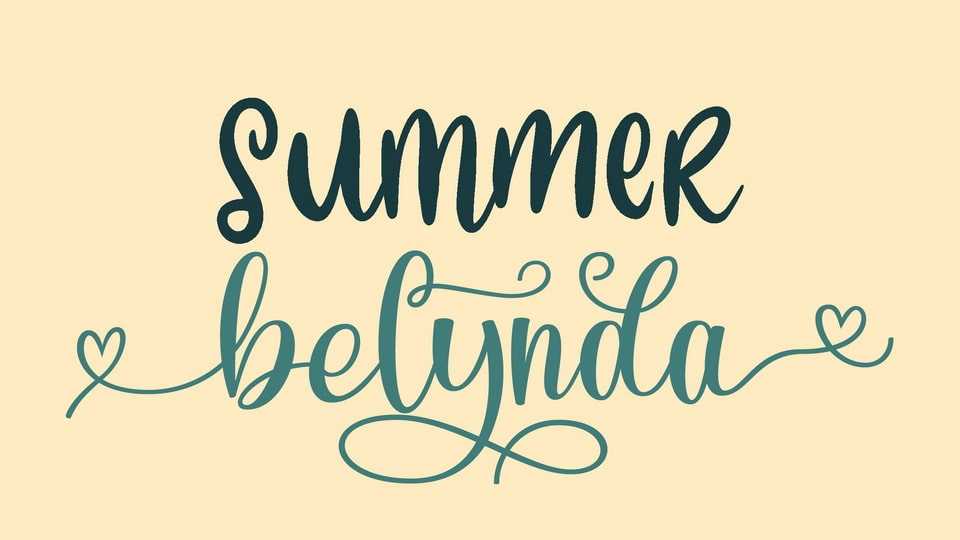
Download Summer Belynda font, a beautiful and romantic handwritten typeface. It looks stunning on wedding invitations, thank you cards, quotes, greeting cards, logos, business cards and every other design which needs a handwritten touch.